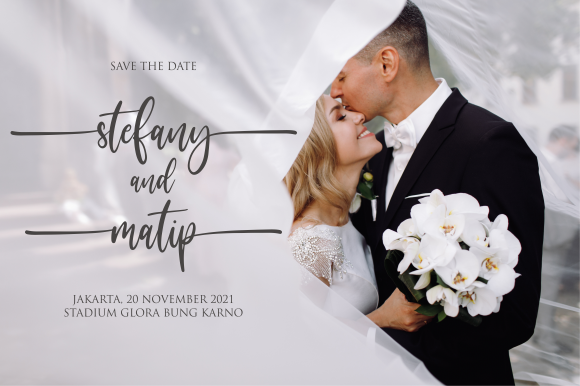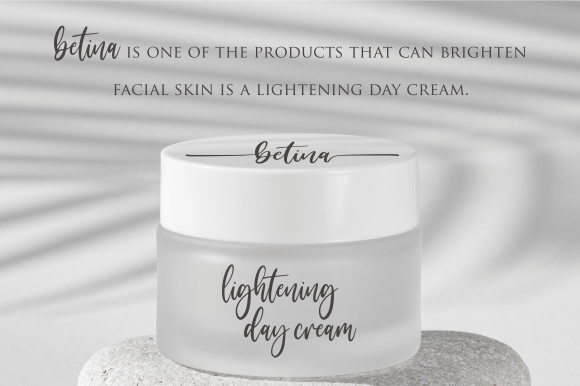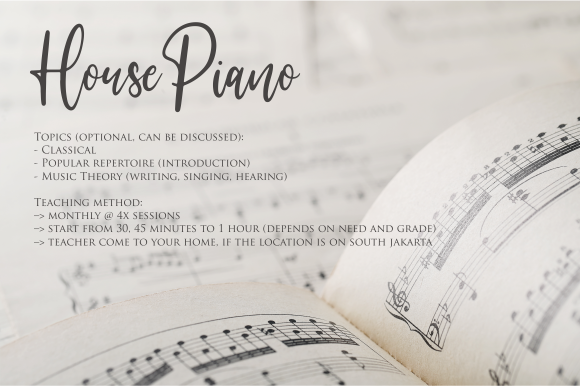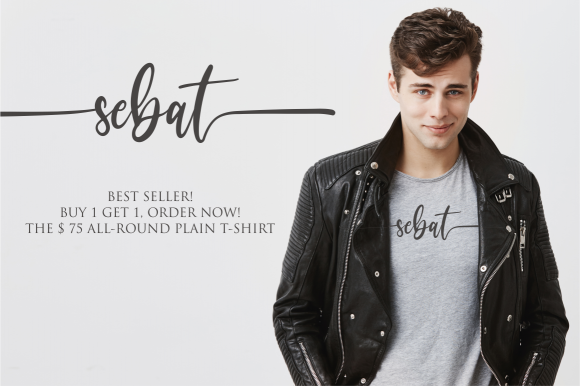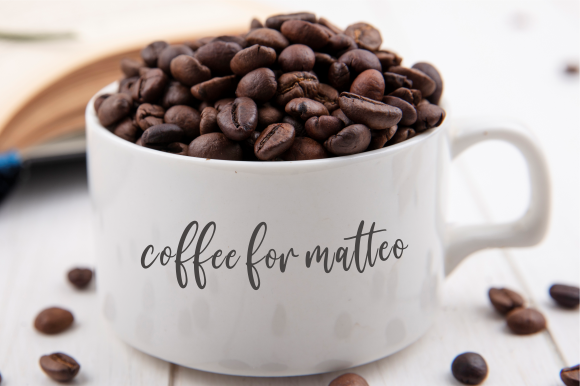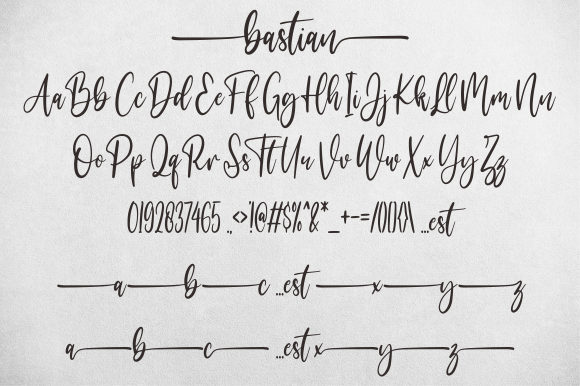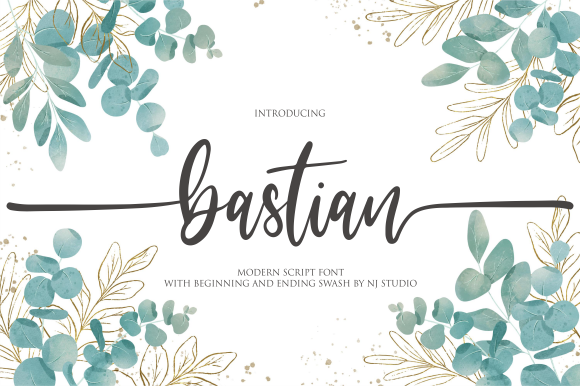
Bastian Font: Elevate Your Design with Luxury and Elegance
In the world of typography, a beautiful font can make all the difference in creating a stunning design. If you’re a designer or crafter looking for a unique and luxurious font to add a touch of elegance to your projects, look no further than Bastian Font. This gorgeous light handwritten font is sure to leave a lasting impression and take your designs to the next level.
The Unique Features of Bastian Font
Bastian Font is a one-of-a-kind typeface that boasts a distinctive feel and a remarkable impact. Its light handwritten style exudes elegance and sophistication, making it perfect for a wide range of design projects, from branding and advertising to packaging and digital media. What sets Bastian apart from other fonts is its unique character, which adds a touch of luxury and refinement to any design.
PUA Encoding for Easy Access to Glyphs and Ligatures
One of the standout features of Bastian Font is its PUA (Private Use Area) encoding. This means that users can easily access all the amazing glyphs and ligatures that make this font so special. With PUA encoding, you can effortlessly navigate the font’s extensive character set, including swashes, alternates, and other decorative elements. This feature makes it simple to create beautiful, one-of-a-kind designs that showcase your creativity and style.
Endless Design Possibilities with Bastian Font
Bastian Font is an incredibly versatile typeface that can be used in a multitude of design projects. Whether you’re creating a logo, brochure, or social media graphics, this font is sure to add a touch of luxury and sophistication. Its light handwritten style makes it perfect for:
- Branding and identity design
- Digital media, including websites and social media graphics
- Stationery and paper goods, such as invitations and greeting cards
Why Choose Bastian Font for Your Design Projects?
With so many fonts available, why choose Bastian Font for your design projects? Here are just a few reasons why this font stands out from the rest:
- Unique and distinctive style: Bastian Font boasts a one-of-a-kind design that’s sure to set your projects apart from the crowd.
- Elegant and sophisticated: This font exudes luxury and refinement, making it perfect for high-end designs.
- Easy to use: With PUA encoding, accessing glyphs and ligatures is a breeze.
- Versatile: Bastian Font can be used in a wide range of design projects, from branding and advertising to packaging and digital media.
Tips for Getting the Most Out of Bastian Font
To truly make the most of Bastian Font, here are a few tips to keep in mind:
- Experiment with different sizes and colors: Bastian Font looks stunning in a variety of sizes and colors, so don’t be afraid to get creative.
- Pair with complementary fonts: Try pairing Bastian Font with other fonts to create a unique and visually appealing combination.
- Use glyphs and ligatures: Take advantage of Bastian Font’s extensive character set to add an extra touch of elegance and sophistication to your designs.
In conclusion, Bastian Font is a truly exceptional typeface that’s sure to elevate your design projects to new heights. With its unique feel, stunning impact, and PUA encoding, this font is perfect for designers and crafters looking to add a touch of luxury and elegance to their work. Whether you’re creating branding materials, advertising campaigns, or digital media, Bastian Font is the perfect choice. So why wait? Download Bastian Font today and experience the power of beautiful typography for yourself!